15+ Best Punk Fonts
Capture the rebellious spirit of punk culture with our punk fonts collection. These fonts embody the raw energy and edgy aesthetics of punk, perfect for designs that demand attention and convey a sense of defiance. Ideal for band logos, gig posters, and any project looking to channel the punk ethos.
Punk Not Yet Rad Font
Introducing the unique and dynamic Punk Not Yet – a Weird Display Typeface that exudes an edgy, punk ambiance. With its handmade, authentic styl...
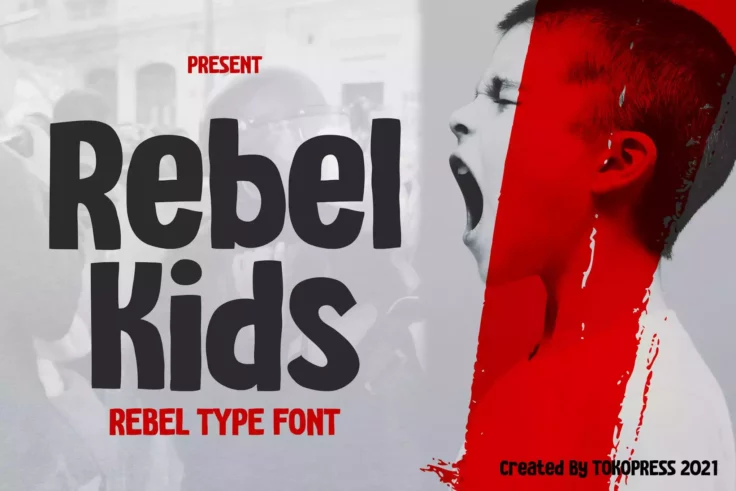
Rebel Kids Modern Font
The Rebel Kids Modern Font is a dynamic and energetic font style that radiates a carefree yet defiant character. It perfectly embodies the spirit and ...
Street Punks Font
Walk into the world of rebellion with the Street Punks Font, a hand-drawn font that vibrantly encapsulates the spirit of graffiti, skate culture, and ...
Brainoise Punk Display Font
Enter the rebellious world of punk aesthetics with Brainoise Punk Display Font. Characterized by bold, jagged and distorted letterforms, it vividly ca...
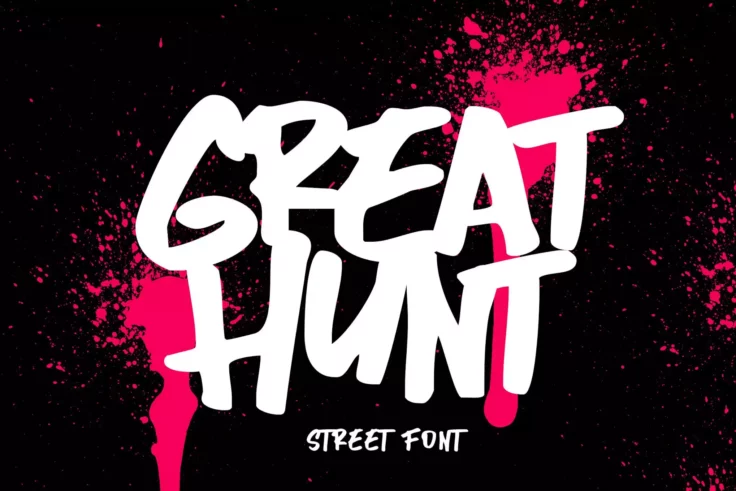
Great Hunt Street Punk Font
GreatHunt brings out the fierce, free-style of the streets, right at your fingertips. As a unique street art-inspired font, it encapsulates the raw en...
Boneless Cool Punk Font
Boneless Cool Punk Font is the resounding echo of punk rock, inspired by old gig posters and the messy handwriting typical of a true rock ‘n rol...
Zombie Punks Retro Horror Font
At first glance, this font will surely remind you of the horror movie covers from VHS tapes from the 80s. It has a spooky and fun design that’s ...
After Punk Cool Font
The “After Punk” font unfurls a creative wave that brushes a minimalistic yet vivid style, bringing a particularly edgy and distinctive ch...
Black Rocket Freestyle Punk Font
Unleash your creativity with Black Rocket, the unique freestyle punk font! Its irregular, grungy yet engaging look is the perfect pick for anyone aimi...
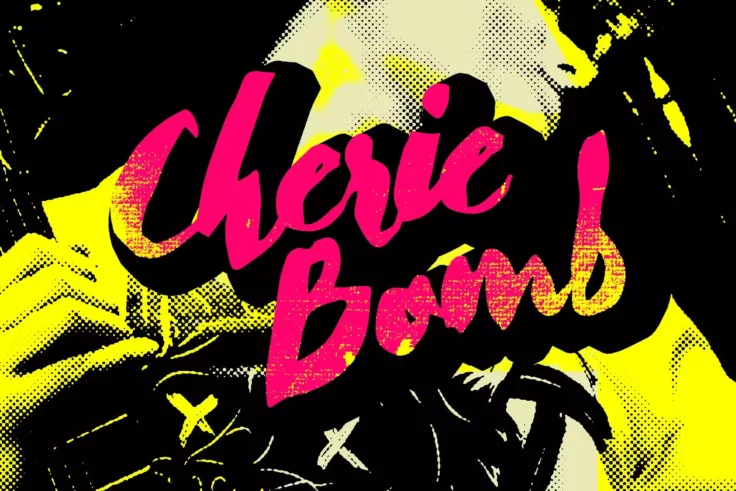
Cherie Bomb Punk Style Font
Meet Cherie Bomb, the brush font influenced by the electric energy of punk-rock. This edgy typeface, handmade with personality and heart, is peppy and...
Rebelion Modern Font
Meet Rebelion, a cutting-edge, contemporary font that exemplifies the fine line between rebellion and grace. Its unique styling brings an air of indep...
Punk Rotten Monoline Font
Dive into the urban grunge of street art with the Punk Rotten Monoline Font. This creative font breathes life into your work with its unique graffiti ...
Misfit Cool Punk Font
Give your designs an authentic punk edge with the Misfit Cool Punk Font. This captivating typeface, rooted in the 90’s punk scene, embodies a ra...
Across the Line Trash and Rebel Font
Meet Across the Line, an engaging font born from the audacious spirit of punk music and the raw grit of street culture. It’s a celebration of the ru...
Punk Lover Grungy Font Duo
Meet Punk Lover, a grungy font duo that screams attitude and non-conformity. Imagine it splashed on band posters, album covers or even tattoo designs....
Rebel Nation Graffiti Punk Font
The Rebel Nation Graffiti Punk Font is a bold declaration of youthful energy, teeming with attitude and a spirit of rebellion. Its aggressive form res...
Punk Cyber Modern Font
Introducing PUNK CYBER, a glimmer from the past with a Y2K Family Font that will electrify your works with early 2000s nostalgia. Bolstered by the era...
Wild Rebel Punk Graffiti Font
Unleash your designs’ rawest, boldest potential with the Wild Rebel Punk Graffiti Font. Displaying a powerful reflection of the urban street cul...
Anarchist Wish Radical Punk Font
Unleash your inner rebel with the Anarchist Wish Radical Punk Font. This handwritten typography is not for the faint of heart. It’s edgy, itR...
FAQs About Punk Fonts
What Are Punk Fonts?
Punk Fonts are typefaces that embody the rebellious, raw spirit of punk culture and music. Characterized by their edgy, anarchic styles, these fonts often feature irregularities, distressed textures, and bold, impactful designs. Punk fonts capture the DIY ethos of punk, drawing inspiration from band flyers, album covers, and underground zines of the punk movement. They are designed to convey a sense of rebellion, energy, and non-conformity, making them ideal for projects that require a gritty, provocative edge.
These fonts vary widely, from hand-drawn letterforms to stenciled designs, and are used in graphic design projects that aim to evoke the punk era's aesthetic or channel its anti-establishment attitude. Punk fonts are popular in music-related designs, alternative fashion branding, and any creative work that benefits from a raw, unpolished look.
How Can You Use Punk Fonts in Your Design Projects?
Punk Fonts can be effectively used in various design projects to add attitude and edge. They are particularly well-suited for music posters, album art, band logos, and merchandise for genres related to punk and its offshoots. Beyond music, punk fonts can enhance the visual appeal of streetwear brands, event flyers, and any design project that aims to stand out with a bold, unconventional look.
It's also crucial to pay attention to legibility, particularly in designs intended for print or outdoor viewing, where readability from a distance is important. Experimenting with font size, spacing, and color can help punk fonts integrate seamlessly into your design, allowing you to capture the punk aesthetic without sacrificing the design's functionality and message clarity.